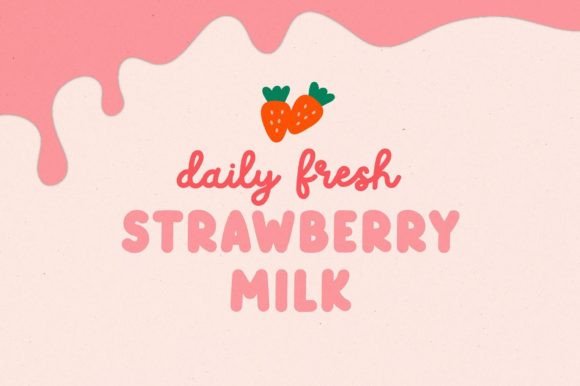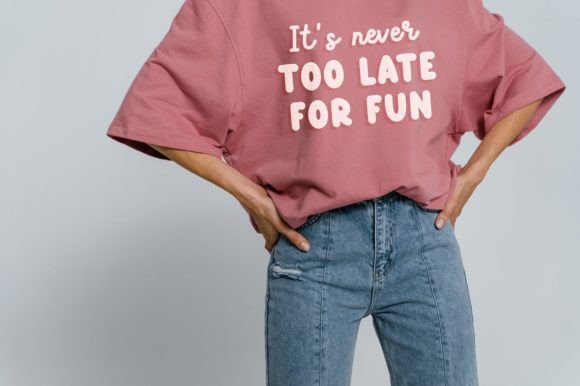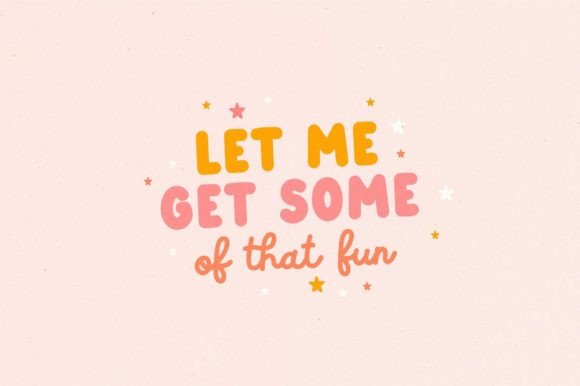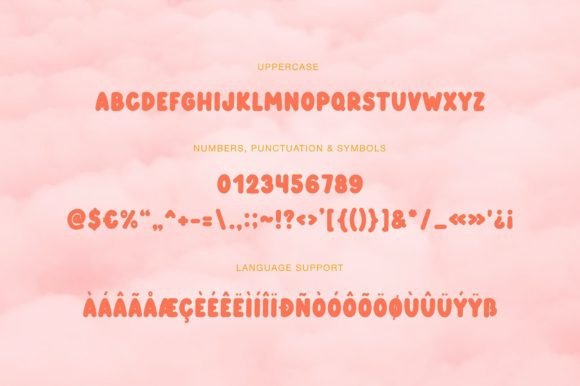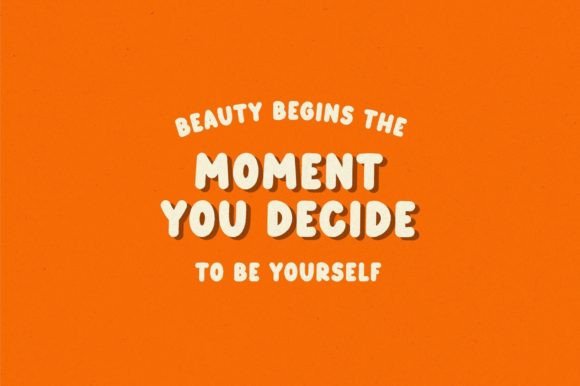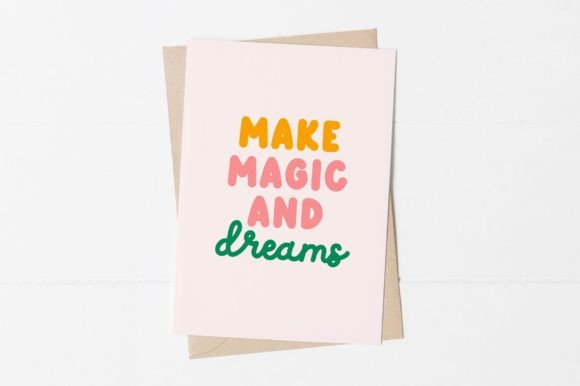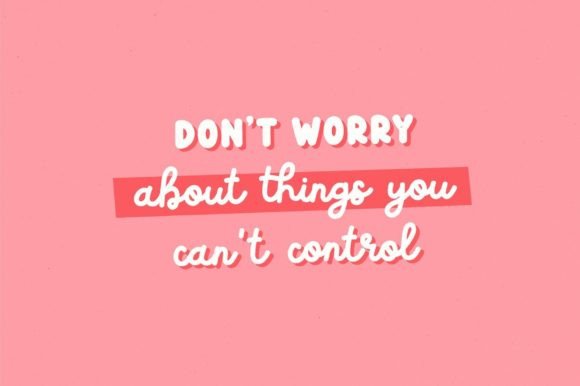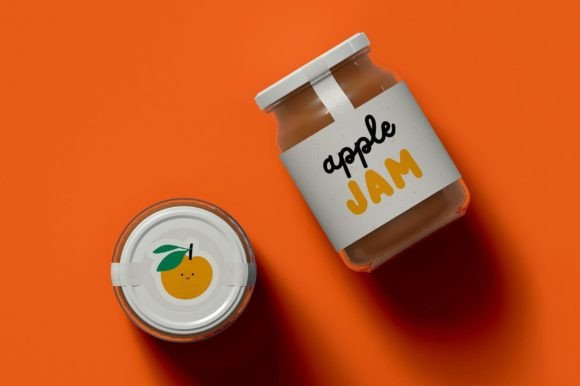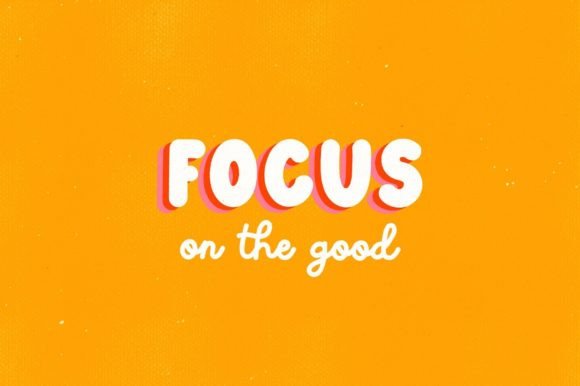
Bubblegum Font
About Bubblegum Font
“Bubblegum” is a bold and expressive font that strikes the perfect balance between playfulness and professionalism. Its thick and solid lines provide clarity and readability, ensuring that the text remains legible even at smaller sizes. The conservative bends in its letterforms create a harmonious and visually pleasing appearance, making it easy on the eyes while maintaining a sense of fun and creativity.
This font’s versatility makes it suitable for a wide range of design projects. Its bold and expressive nature lends itself well to eye-catching headlines, posters, banners, and advertisements, where a strong visual impact is desired. Additionally, “Bubblegum” can be used for branding, packaging, product labels, and social media graphics, adding a touch of personality to various marketing materials.
The playful yet professional vibe of “Bubblegum” makes it a popular choice for projects targeting a youthful or energetic audience. Whether used in digital or print media, this font conveys a sense of energy and enthusiasm, making it ideal for designs related to children’s products, entertainment, events, or any content that aims to capture attention and create a memorable impression.
With its bold and expressive characteristics, “Bubblegum” offers a versatile typographic solution for designers seeking a font that combines readability, creativity, and a touch of whimsy. Its ability to seamlessly blend playfulness and professionalism makes it a valuable asset in any designer’s toolkit, allowing for the creation of visually appealing and engaging content across a variety of applications.